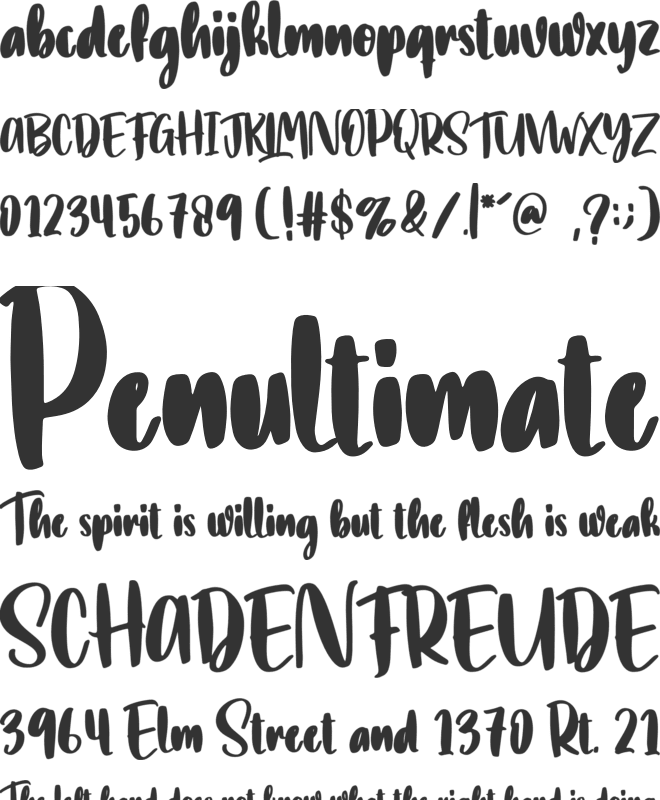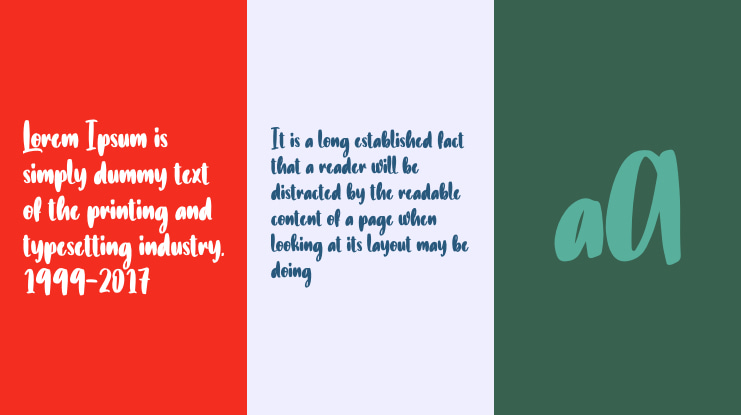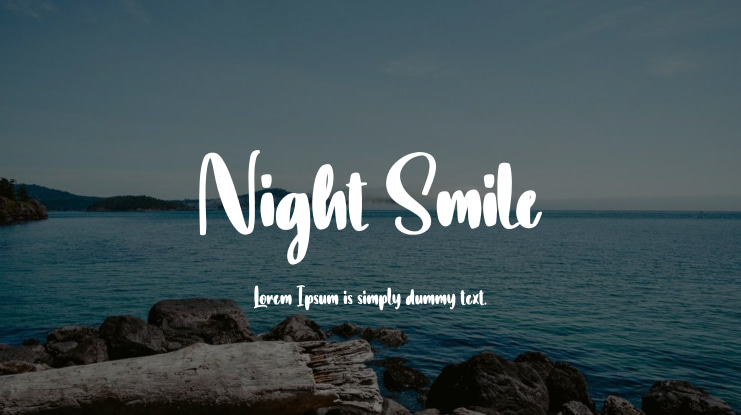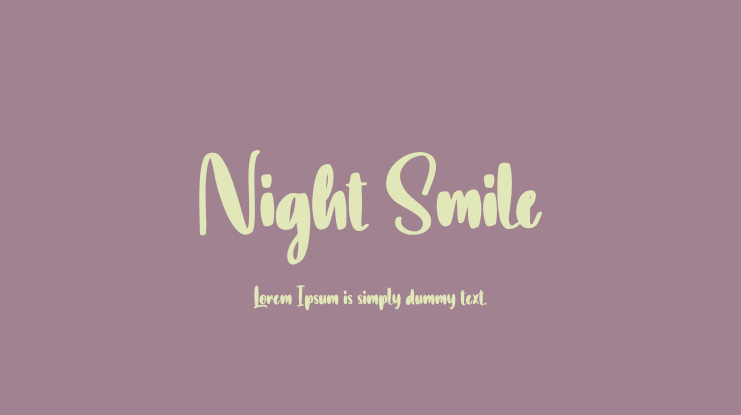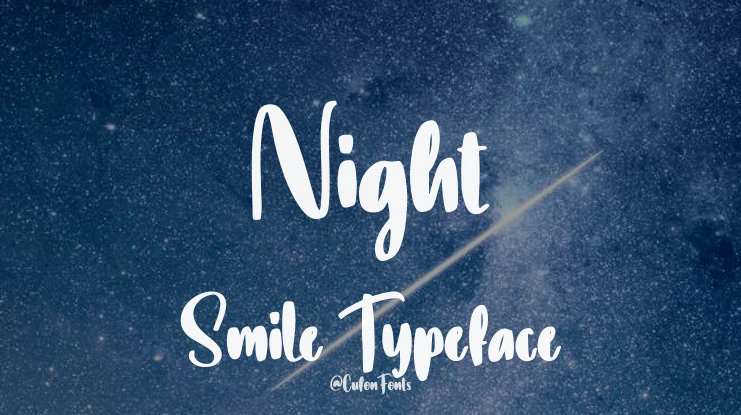
Our latest stylish fonts are ideal for wall displays, wedding invitations, social media logos, advertisements, packaging, designs, labels, photography, watermarks, invitations, stationary, and any project that demands elegant handwriting.